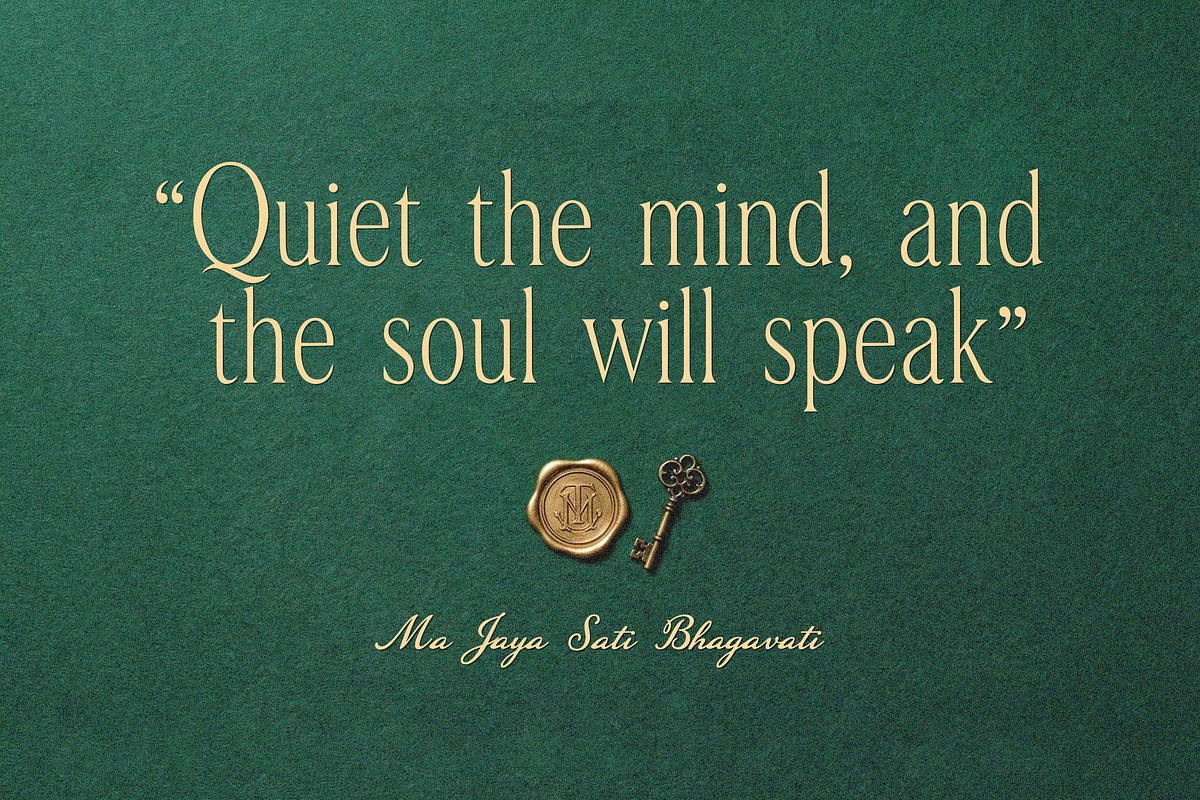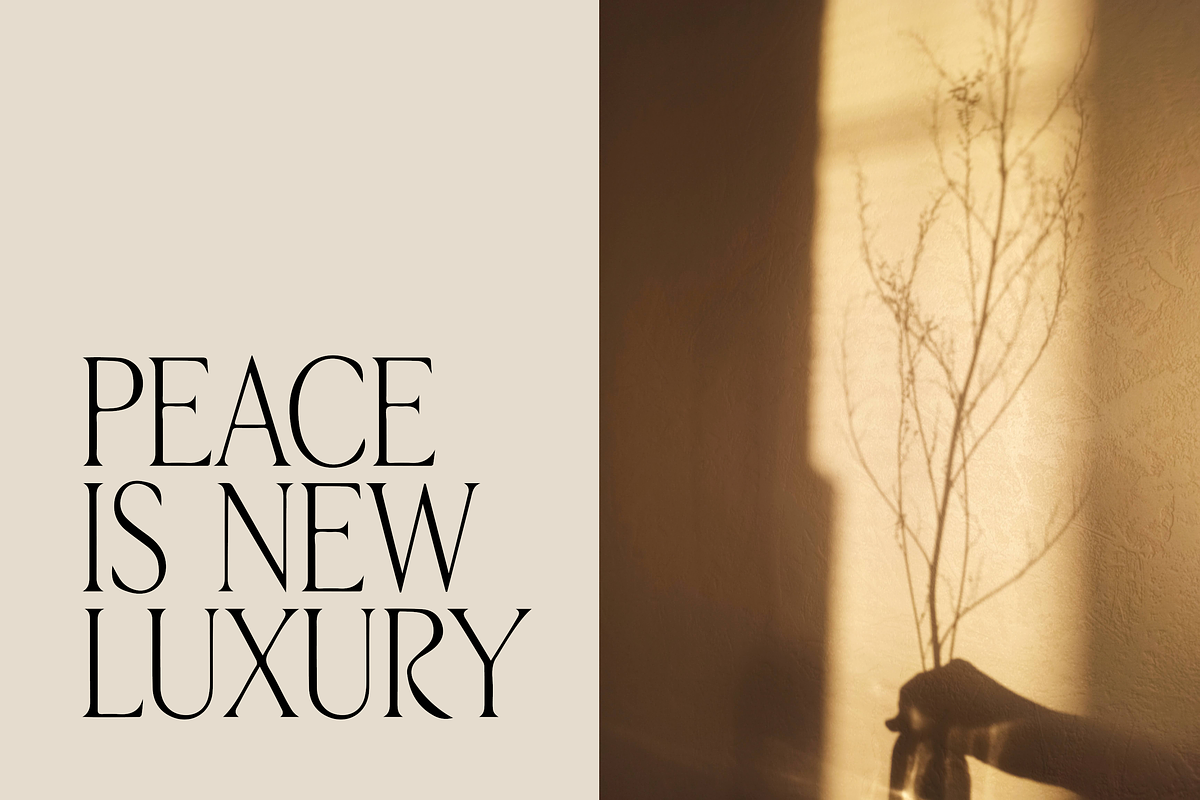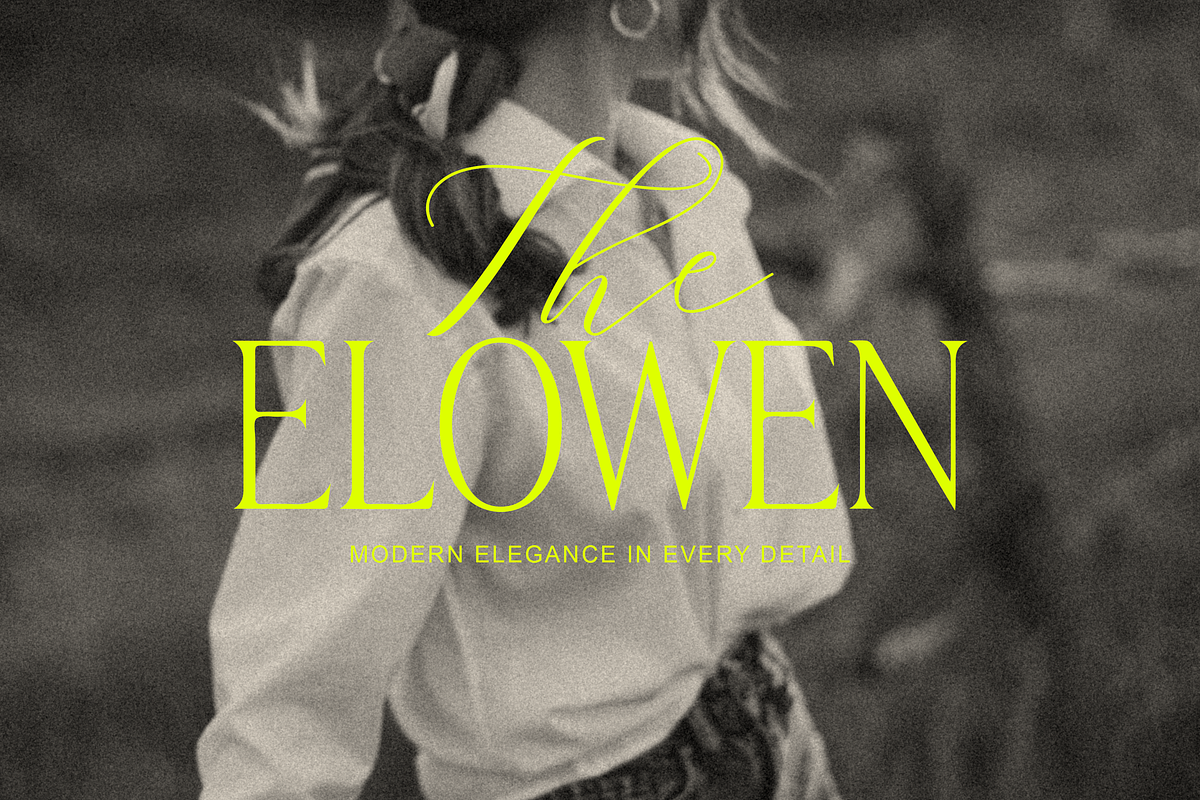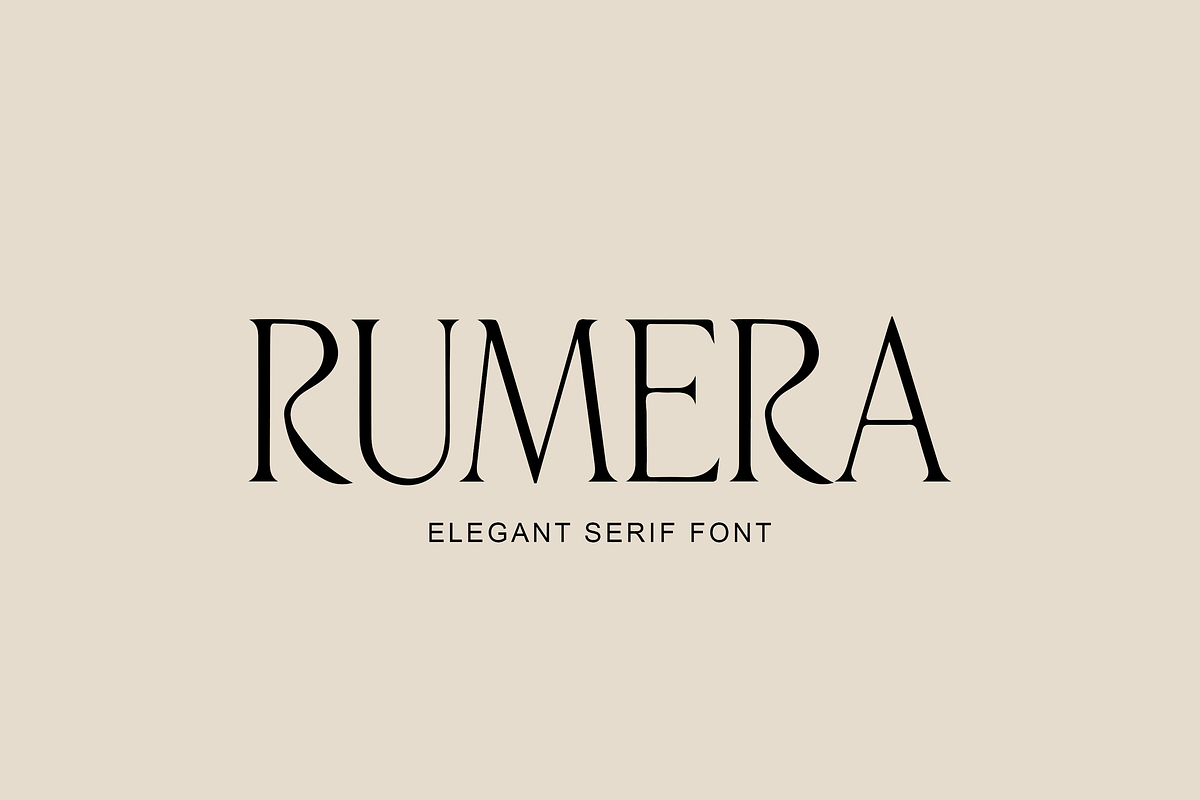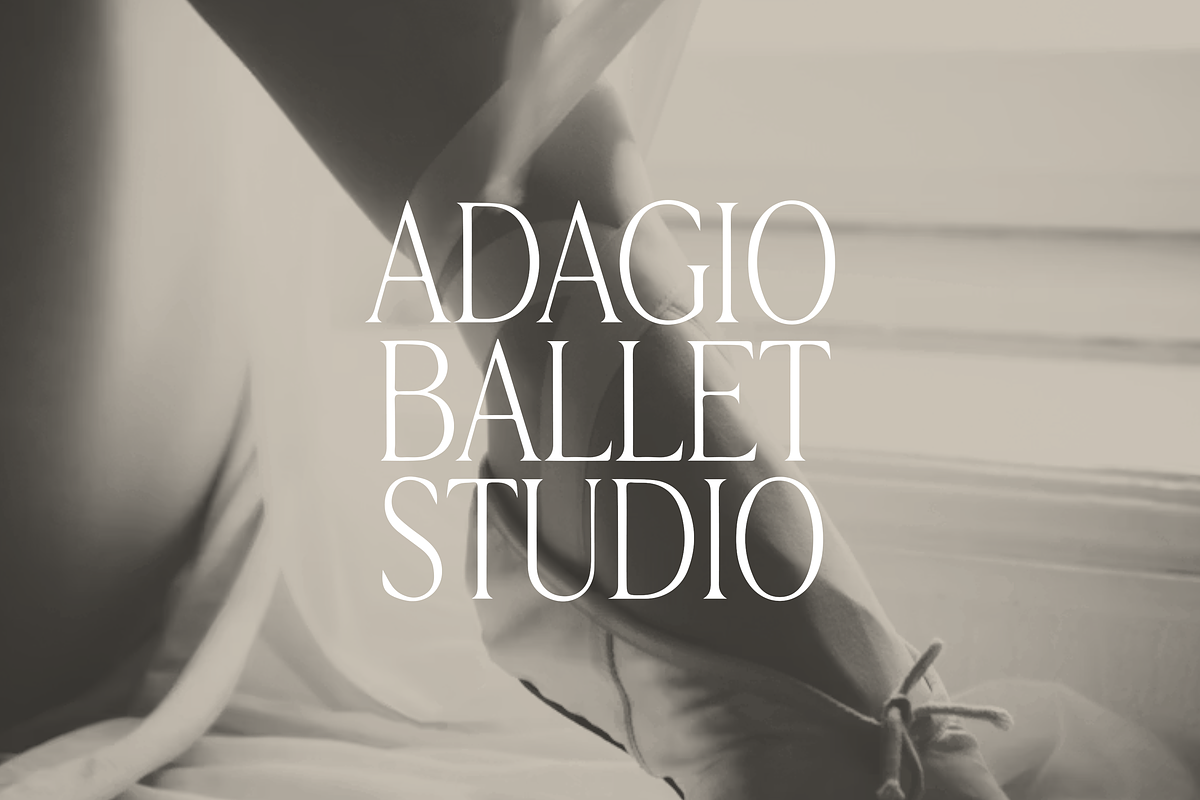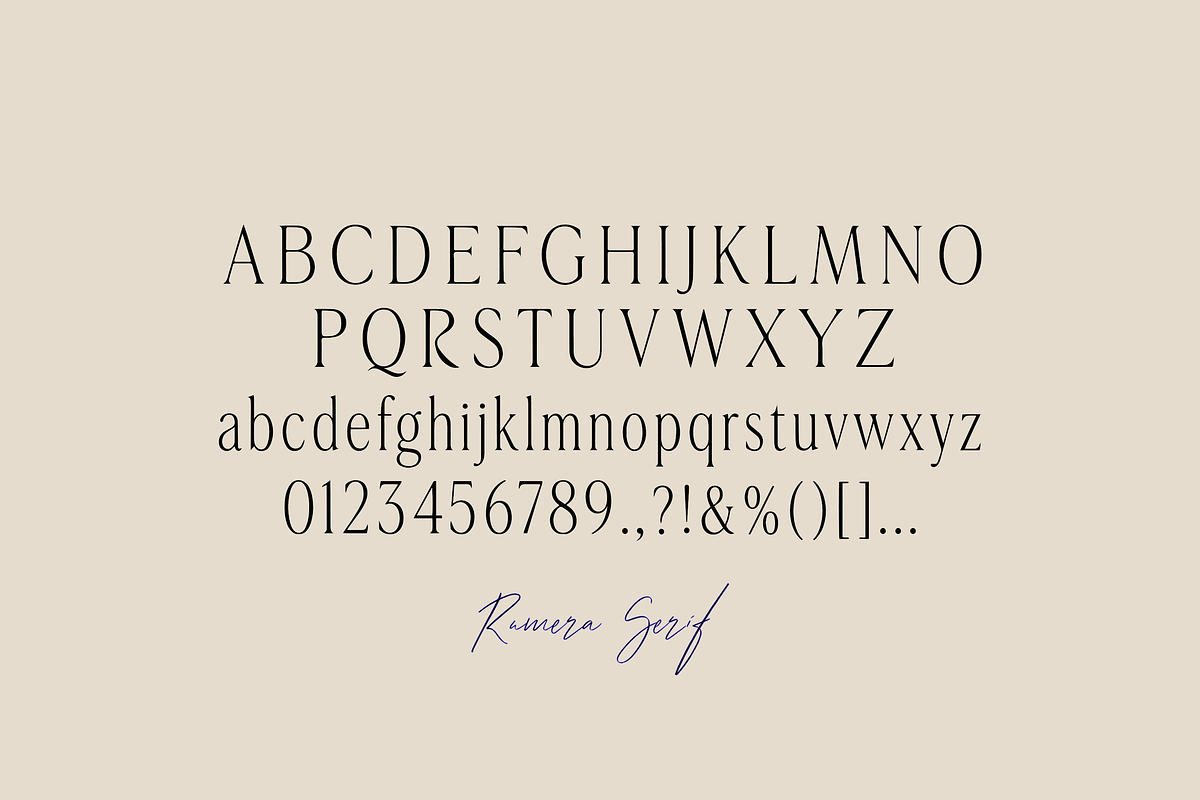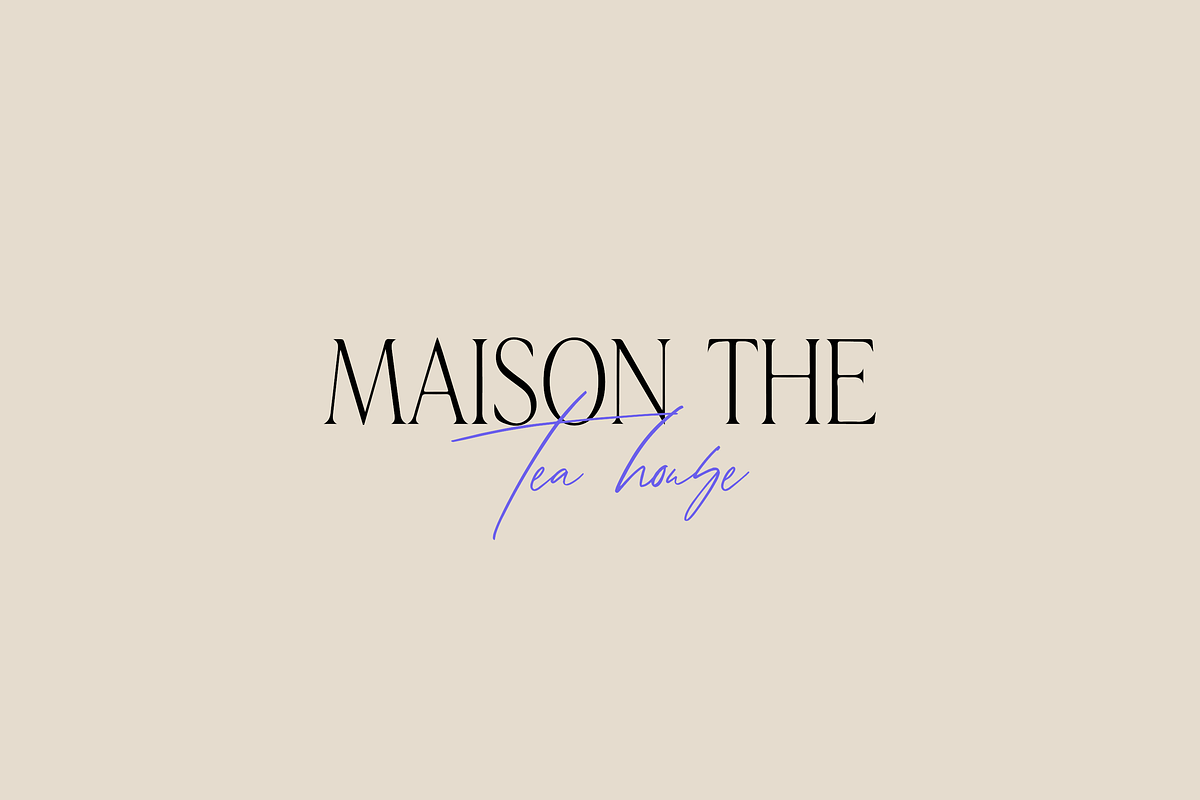
Rumera Serif
Rumera Serif is an elegant high-contrast serif font with a refined, luxurious look. It is perfect for branding, logos, fashion projects, editorials, packaging, invitations, and social media design.
This typeface was created for designers and business owners who want a sophisticated, feminine, and timeless visual style. Rumera Serif works beautifully for beauty brands, boutique logos, wedding stationery, luxury packaging, magazine-style layouts, and premium brand identities.